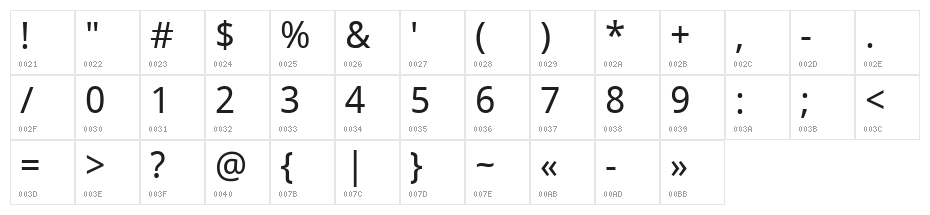
Khmer Font
Khmer Description
This font is a clean and modern sans-serif typeface characterized by its simplicity and readability. The characters are evenly spaced with a consistent stroke width, making it highly legible across various sizes. The design is minimalistic, with smooth curves and straight lines that give it a contemporary feel. It maintains a uniform appearance, which is ideal for digital and print media. The numerals and special characters are clear and distinct, ensuring they stand out in any context. This font is versatile, suitable for both professional and casual applications, and can be used effectively in a wide range of design projects.
| Proposed Projects | Ideal for web design, corporate branding, advertising, and editorial layouts. |